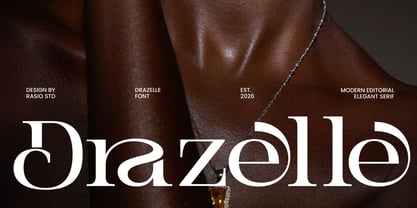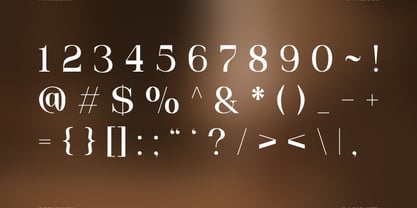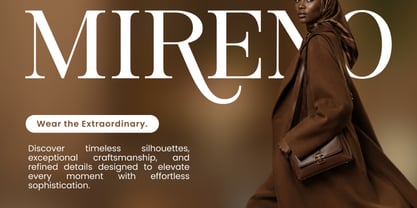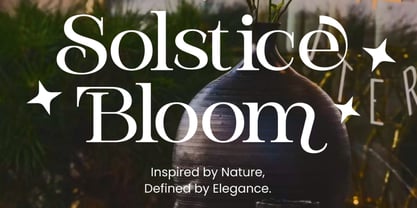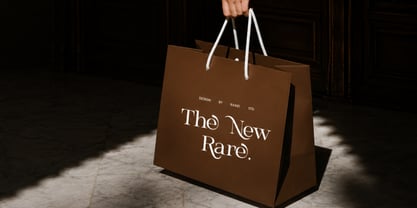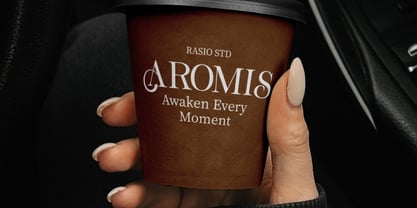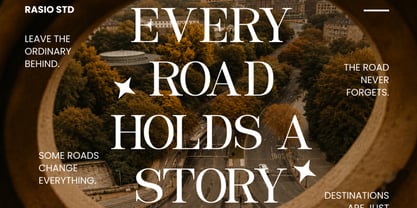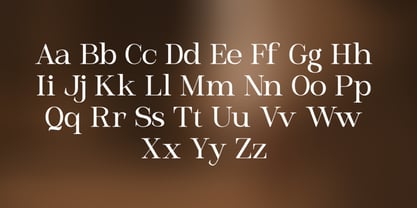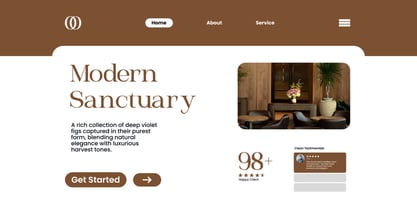
Drazelle
by Rasio Studio
The Drazelle Font Family was designed by Fajar Indra and published by Rasio Studio. Drazelle contains 1 styles. More about this family
Drazelle is a refined high-contrast serif typeface that blends timeless editorial elegance with contemporary precision. Designed with graceful proportions, delicate hairlines, and confident vertical stems, each character delivers a luxurious visual presence while maintaining exceptional readability. The combination of sculpted curves, refined stroke transitions, and generous spacing creates sophisticated typography suited for premium branding and high-end visual communication.
Relevance and Use Case is perfect for premium creative projects that require elegant typography with a refined editorial aesthetic. Its sophisticated serif construction works beautifully for luxury brand identities, fashion campaigns, beauty and skincare packaging, jewelry branding, magazine layouts, publishing projects, wedding stationery, boutique logos, architectural presentations, interior design portfolios, premium product packaging, website hero sections, and visual identity systems that demand timeless elegance with contemporary refinement.